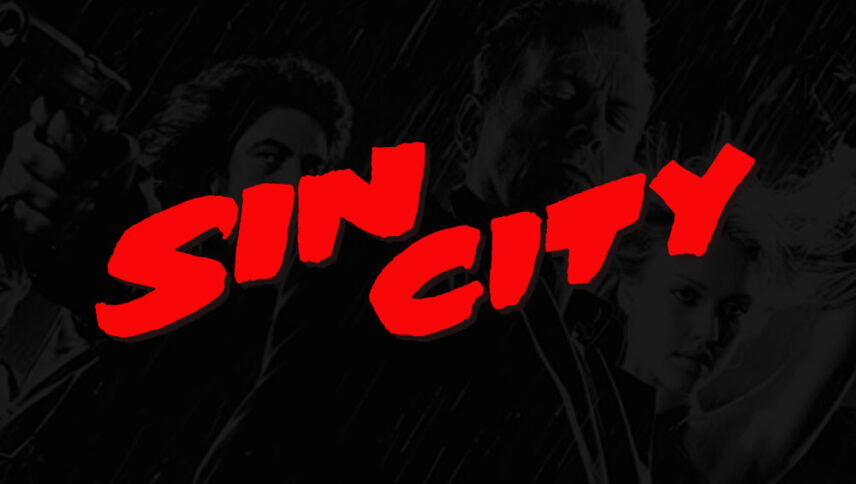
Sin City Font
What font is used in the Sin City logo?
It is rare for a movie to attribute the psychology of colors to humans and their blood. There are a lot of characters in Sin City movie, but the font of its logo is designed in the color of the character who is in love and shows his blood in the movie Red. The font style has also been scary, and in gangster or mafia movies and in general, the designers have used this font a lot and it is also used for personal use, i.e. Halloween flyers.
About Sin City
Sin City is one of the most faithful cinematic adaptations of a comic book story by Frank Miller.
In the city of sin, it is the dominance and shadow of evil and the new atmosphere of the film that unites the four episodes of the film like a chain. What attracts the most attention in this film is the special and unique scene design and performance style of the film.
The City of Sin is a black-and-white film, but colors such as yellow and red have also been used in parts. The interesting thing is that even people’s blood is white, and only Maro is exceptional and the blood is red. Maybe it’s because she’s a lover and the color red symbolizes her warm feelings.